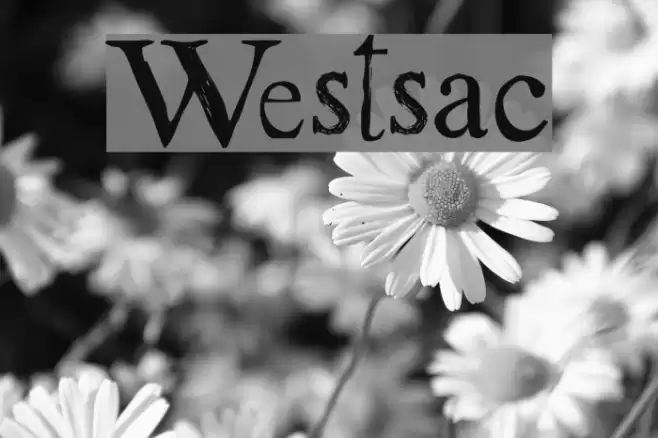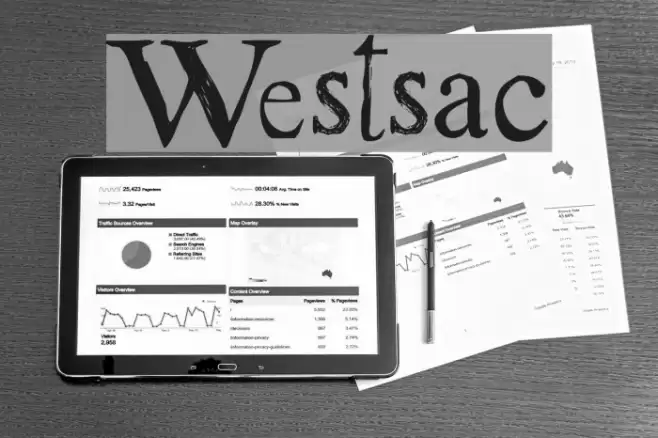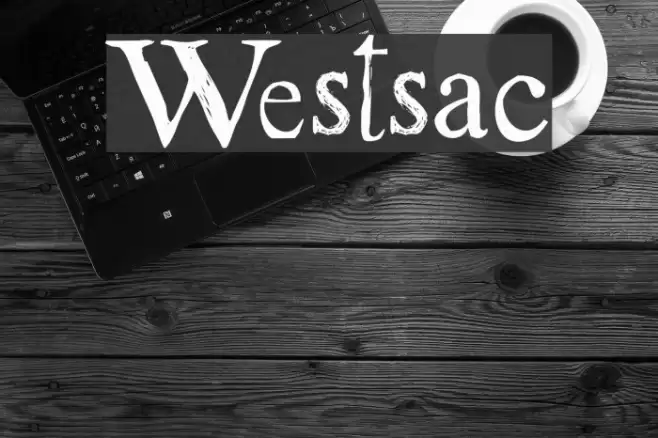
Westsac Font
Westsac Description
This font features a distressed and textured appearance, giving it a vintage and rugged feel. The characters are serifed, with varying stroke thickness that adds to its handcrafted look. The uppercase letters are bold and prominent, while the lowercase letters maintain a consistent style with slightly exaggerated serifs. Numbers and special characters follow the same design, ensuring uniformity across all glyphs. The font's unique style makes it stand out, ideal for projects that require a touch of antiquity or a rustic aesthetic.
A distressed serif font with a vintage, textured style from Uncategorized fonts.
- Proposed Projects: Ideal for vintage-themed posters, rustic branding, book covers, and artistic projects that require a handcrafted look.
- Overall Style: Vintage
- Use Case: Logos, Headlines, Artistic projects